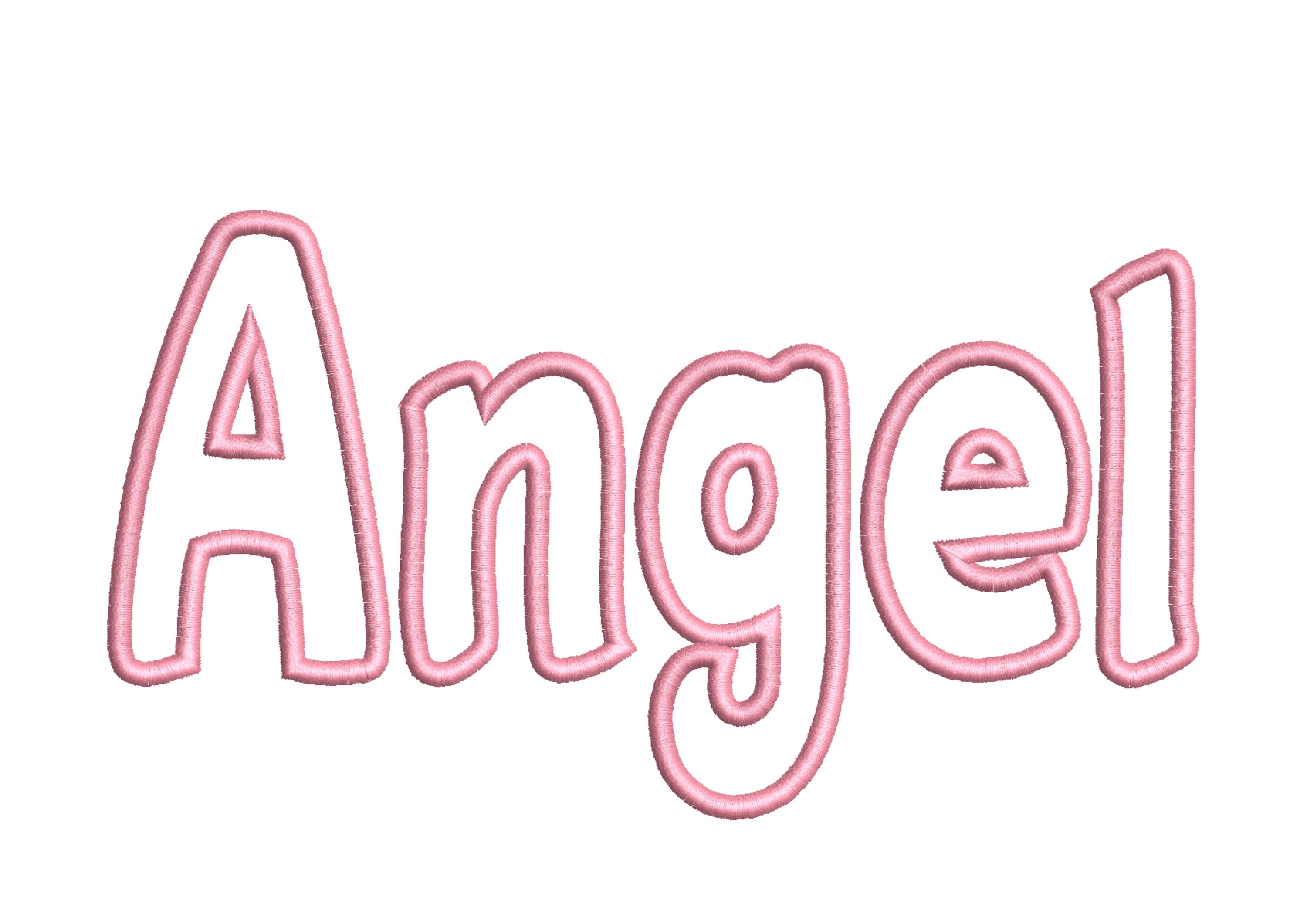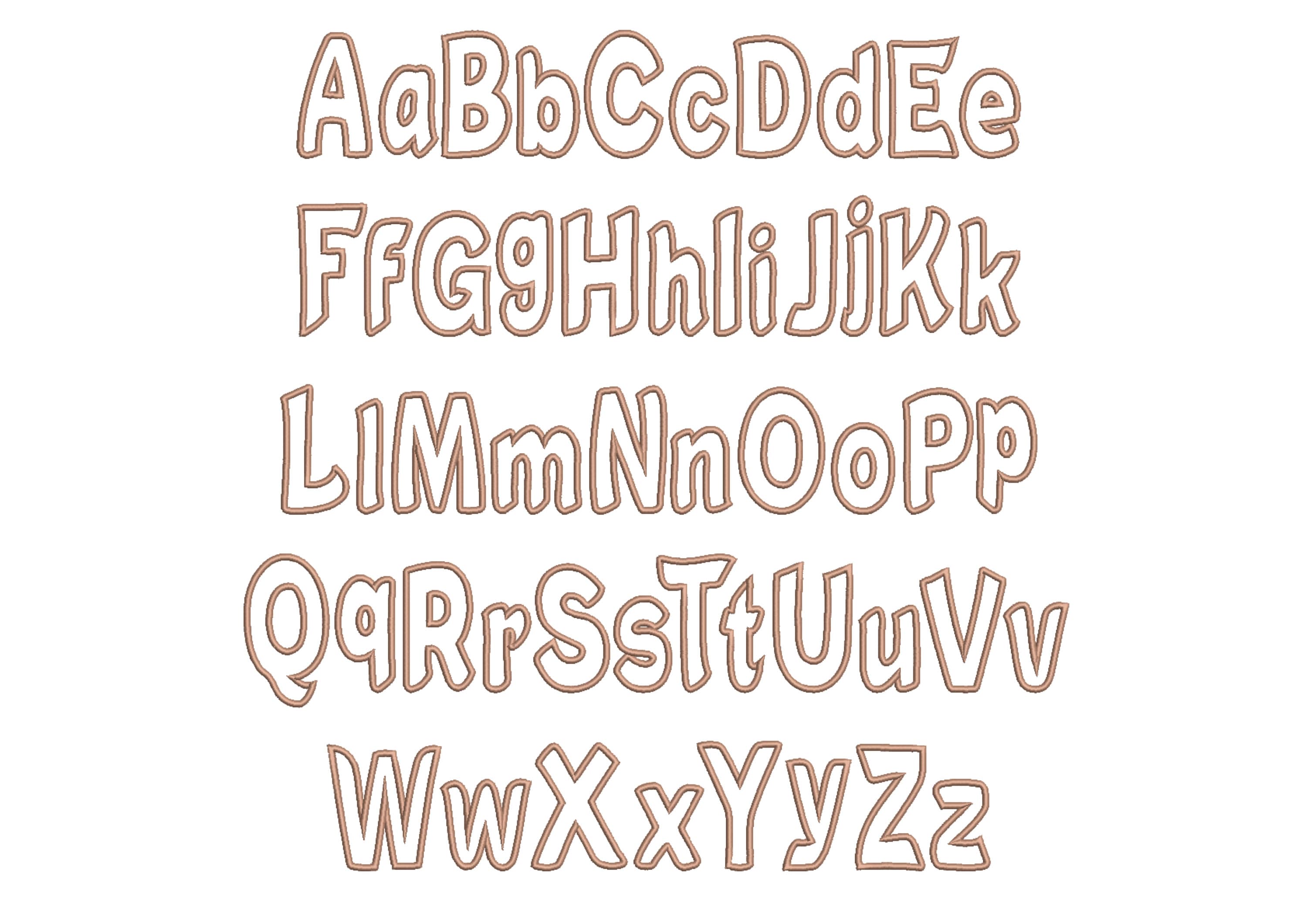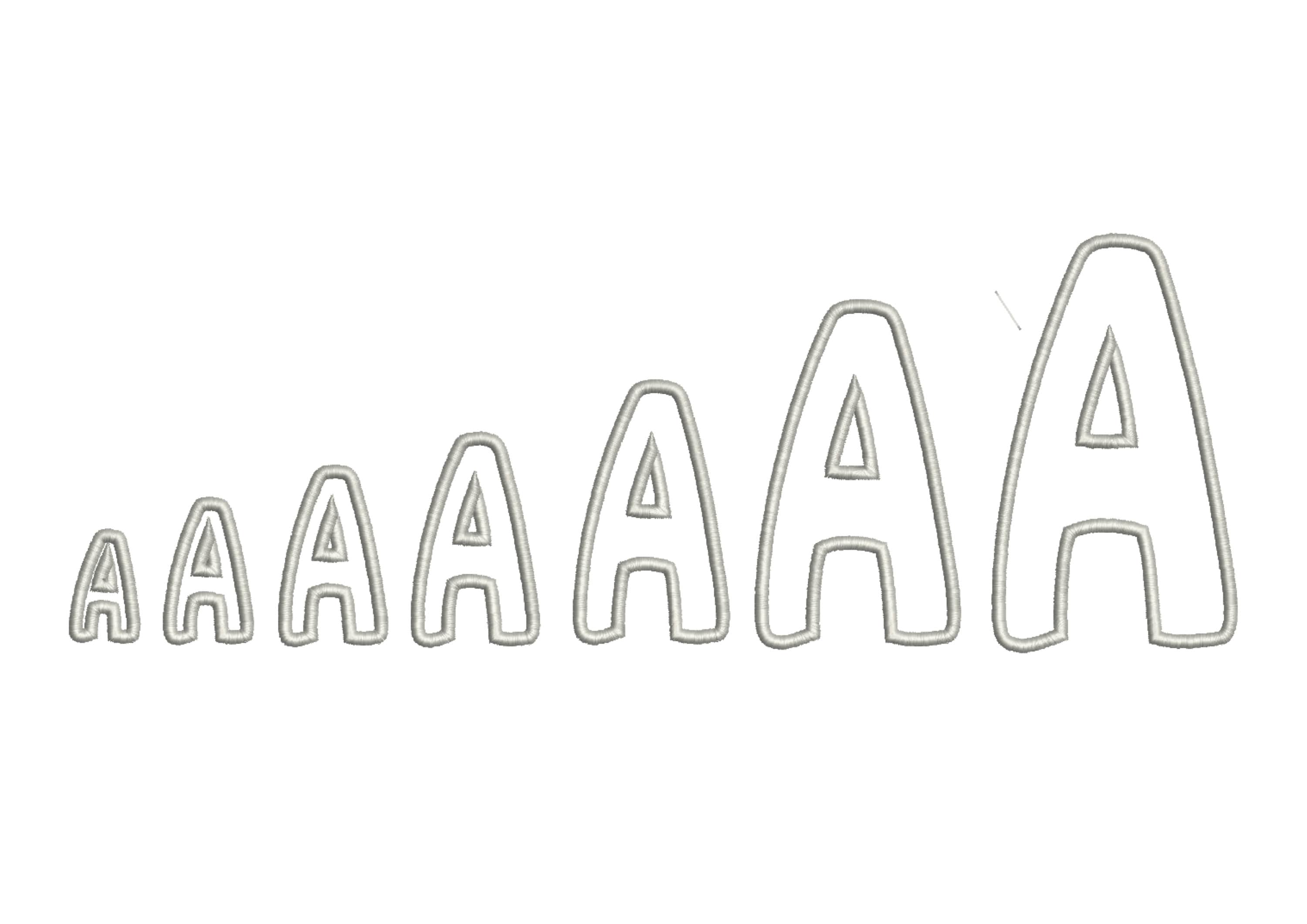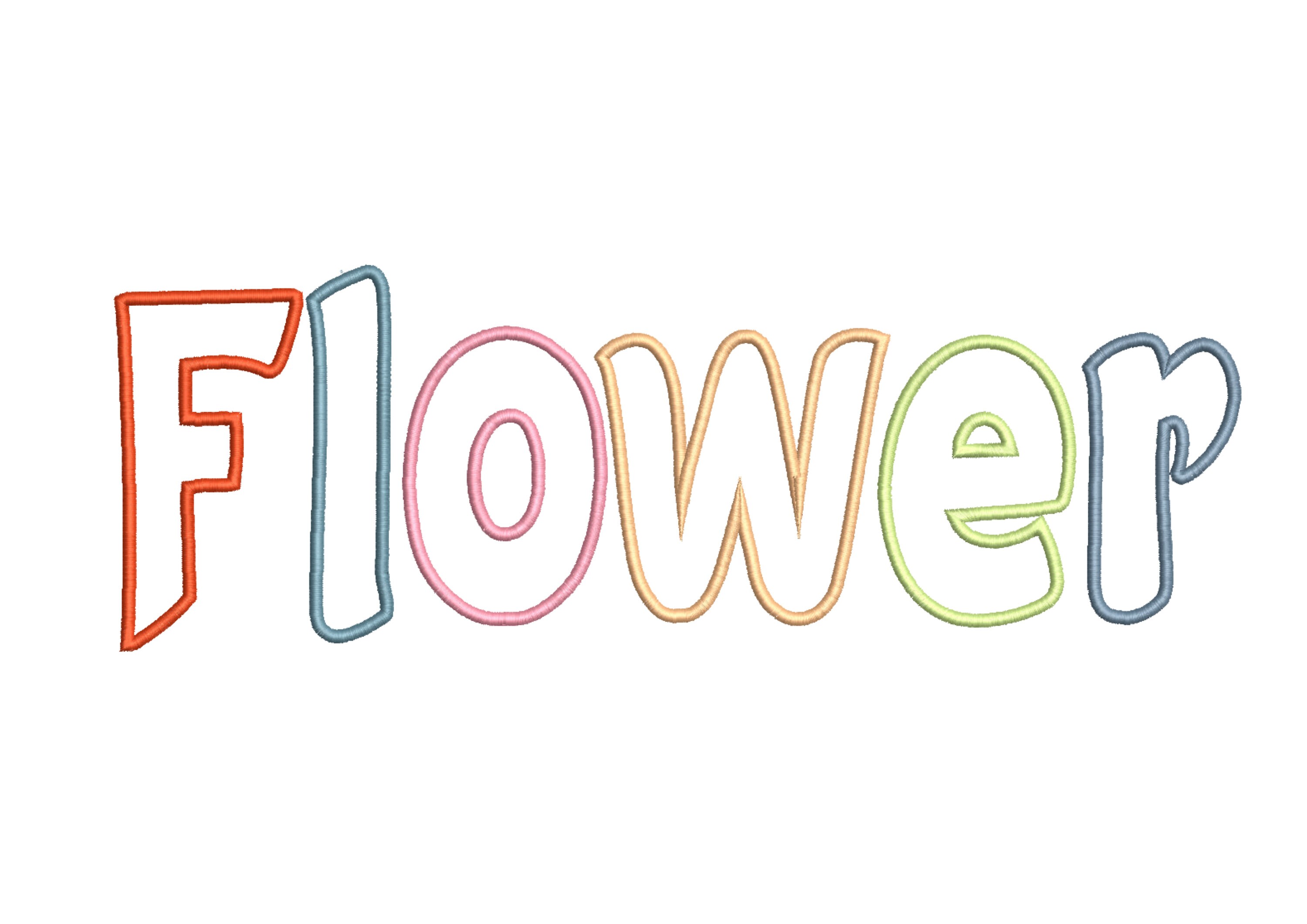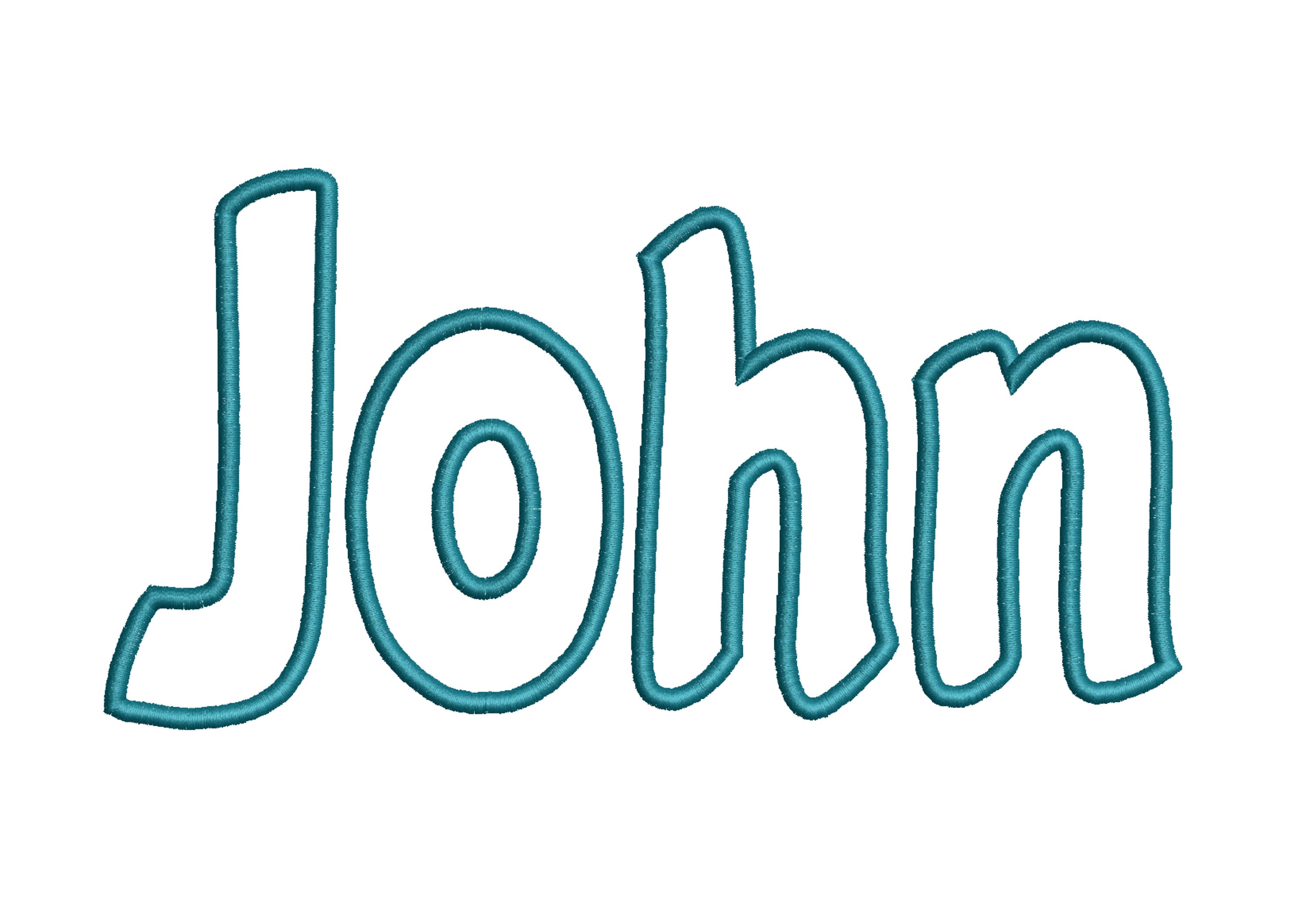
Perfect applique Font satin stitch outline alphabet machine embroidery designs in sizes 1.3 up to 4.9 inches kids name monogram, BX included
Entire alphabet uppercase and lowercase letters Aa-Zz.